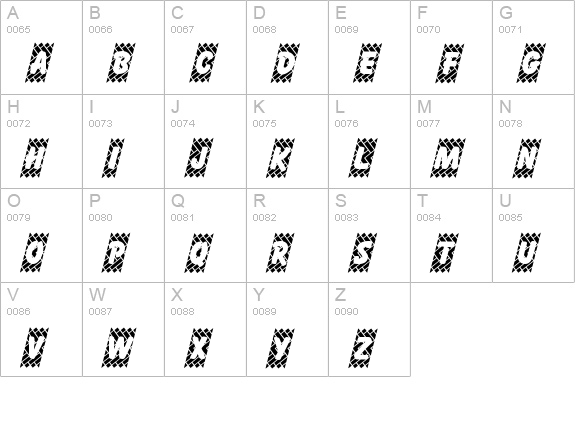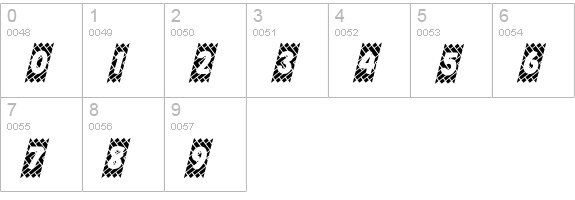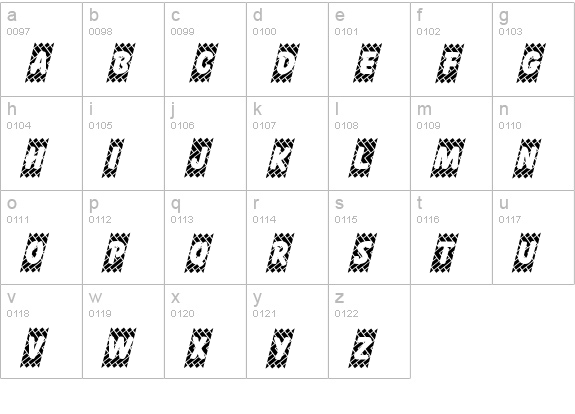
SkidzExtra Font Details
Introducing SkidzExtra, a captivating and dynamic font that will add a touch of vibrancy to any project. With its bold and playful design, SkidzExtra is perfect for those seeking to make a lasting impression. This font showcases a unique combination of rounded edges and sharp angles, creating a visually striking and modern aesthetic. SkidzExtra is not only visually appealing, but it also offers practicality and versatility. Whether you're looking to design eye-catching logos, create attention-grabbing headlines, or craft impressive display text, SkidzExtra has got you covered. Its distinct letterforms and consistent spacing ensure readability, even at smaller sizes. One of the most remarkable aspects of SkidzExtra is that it is absolutely free. Yes, you read that right. This incredible font is freely available to download at FontsMarket.com, a leading platform for font enthusiasts. Now you can elevate your designs without breaking the bank. And it doesn't stop there! SkidzExtra comes with a wide range of characters and glyphs, including multilingual support, making it accessible to designers and creatives from all around the world. With this font, you can effortlessly communicate your message, no matter the language or audience. So why wait? Download SkidzExtra today and witness the transformation it brings to your projects. Let this font unleash your creativity and captivate your audience with its bold and energetic presence. SkidzExtra is the perfect choice for those who dare to stand out and make a statement. Get it now, only at FontsMarket.com.